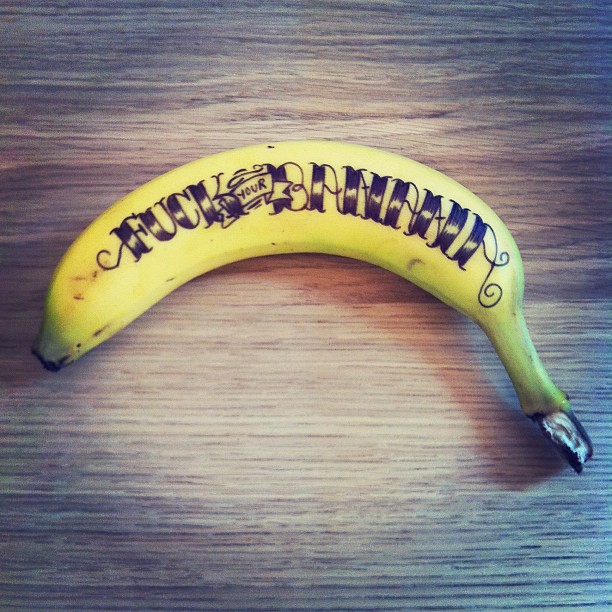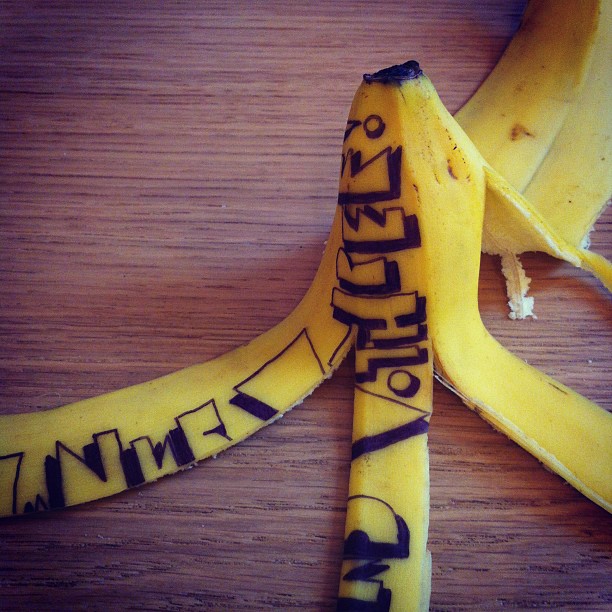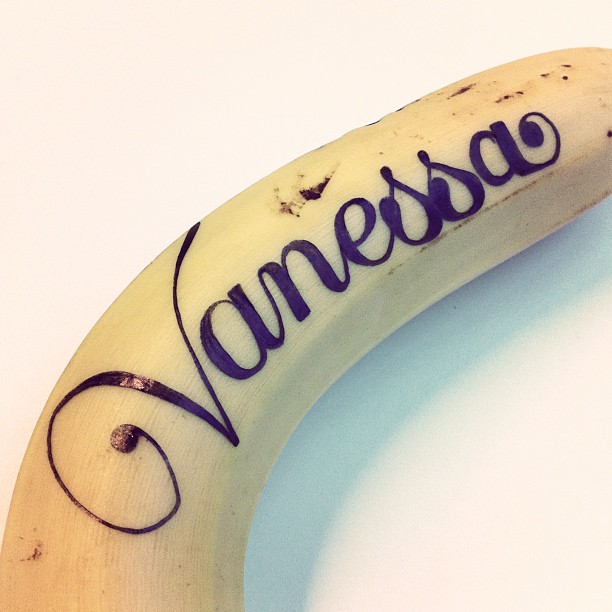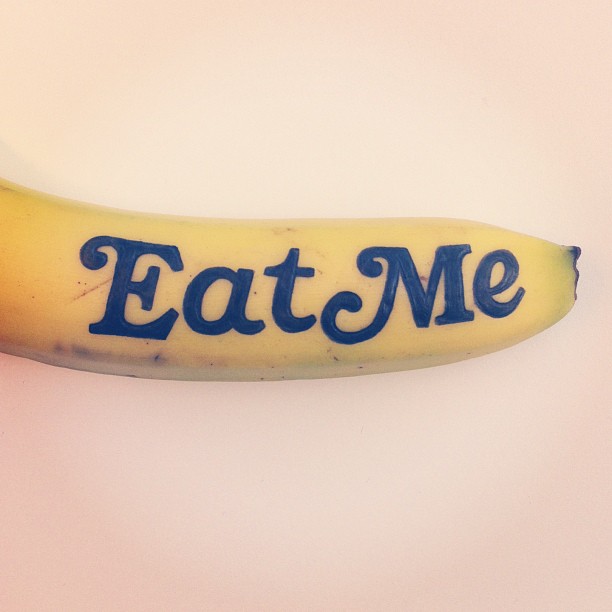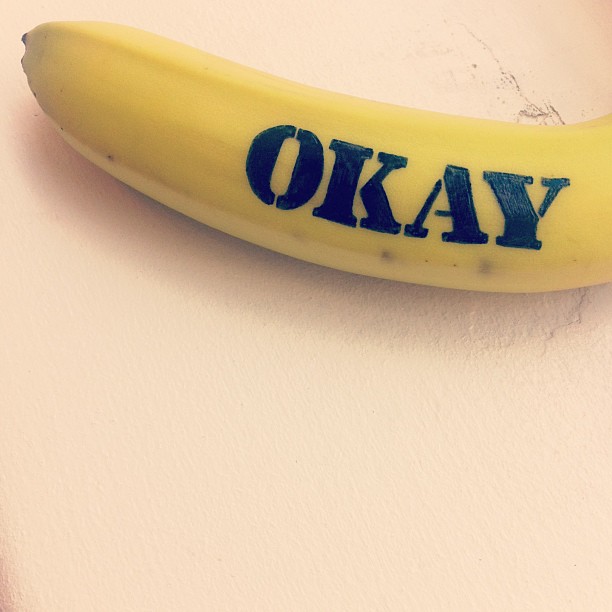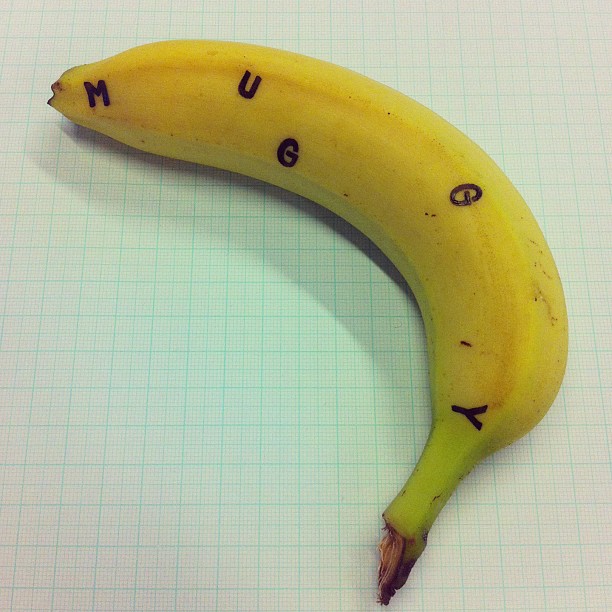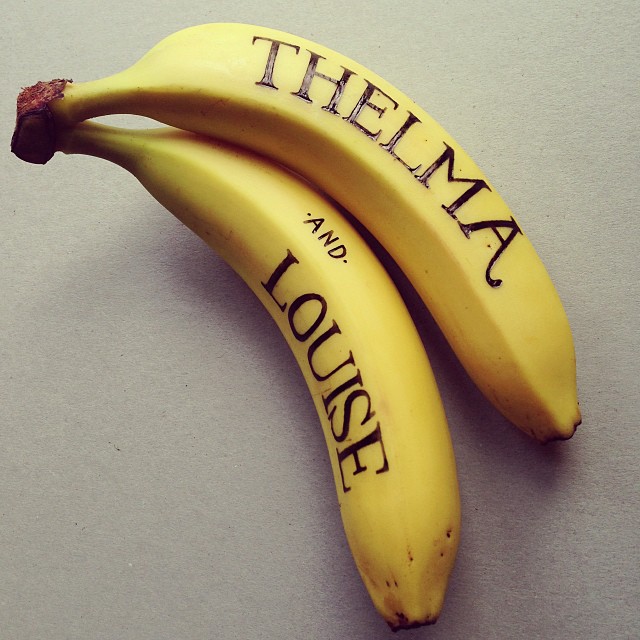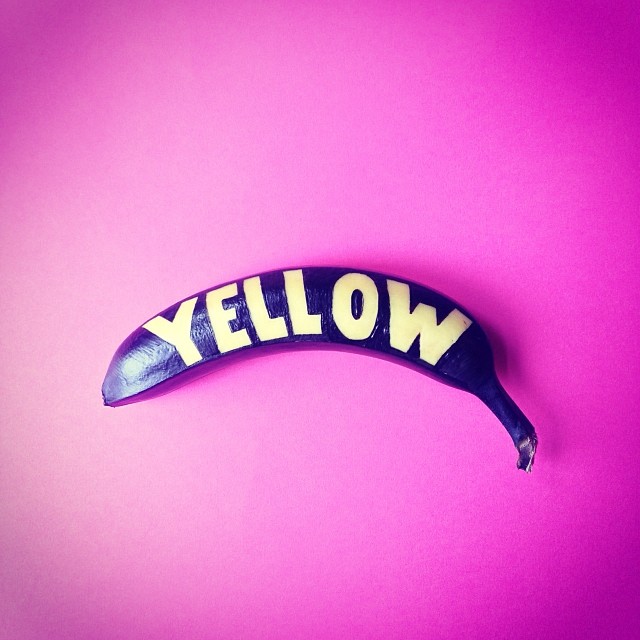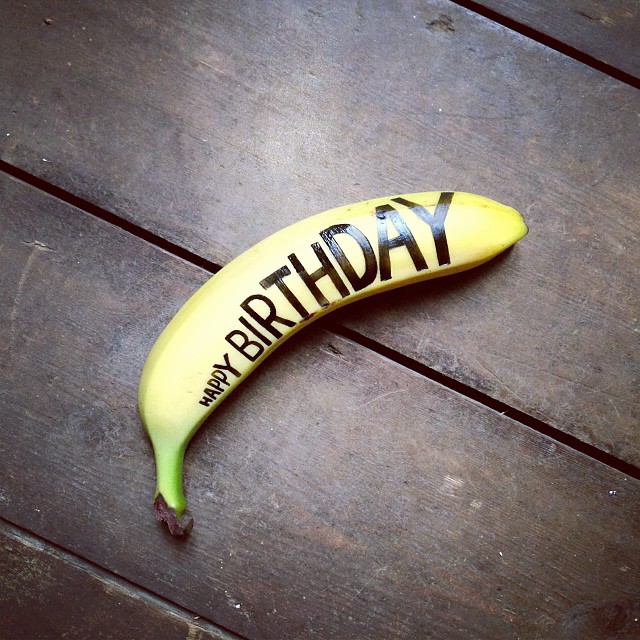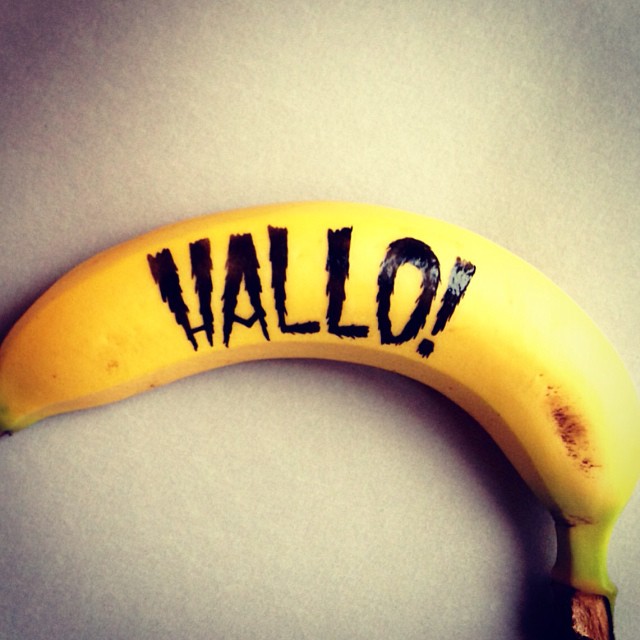
Go bananas go!
Is it a viral or just a happy easy going break at work? The sure is that we love these typographic creative action that Mat Dolphin do on bananas. Playful, experimenting, refreshing your hand typographic skills, funny and above all nutritious. Specialized in typography, marketing and 3D with clients like Heineken and Amazon, Mat Dolphin deserve your attention with or without bananas. Take a look on the typographic collection and follow these guys for updates here.